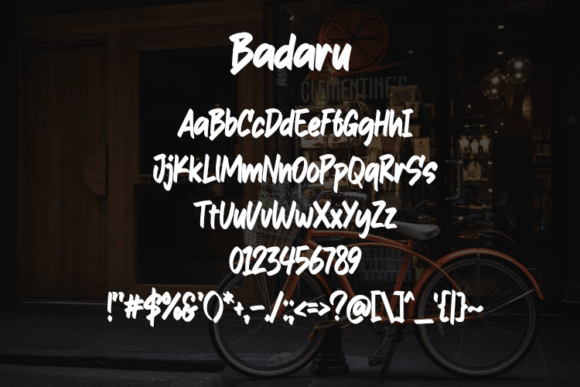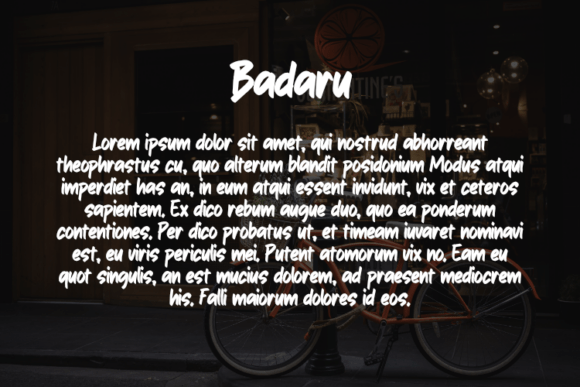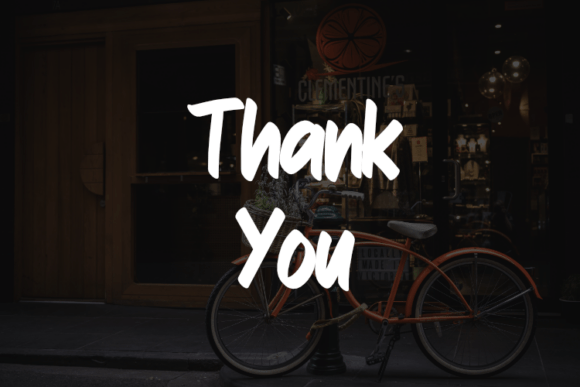
Introducing Badaru Font: The Ultimate Design Companion for Creatives
In the world of design, the right font can make all the difference. It can elevate a simple design into a stunning work of art, convey a message with clarity, and even evoke emotions. For designers, crafters, and DIY enthusiasts, finding the perfect font that is both versatile and compatible with various design software can be a daunting task. This is where Badaru Font comes into play – an all-purpose, versatile font designed to bring creativity to clothing designs and a wide spectrum of products.
The Versatility of Badaru Font
Badaru Font is not just another font; it’s a design companion that can be used across a multitude of projects. Whether you’re designing t-shirts, hoodies, stickers, or any other product, Badaru Font is the perfect choice. Its dynamic and unique style ensures that your designs stand out in the crowd, capturing the attention of your audience. With Badaru, the possibilities are endless, and it’s up to your imagination to create something truly remarkable.
Key Features of Badaru Font
- All-purpose and Versatile: Designed to be used across a wide range of products and designs.
- Unique and Dynamic Style: Adds a distinctive touch to your designs, making them stand out.
Why Choose Badaru Font?
Choosing Badaru Font for your design projects comes with numerous benefits. Firstly, it saves you time and effort in searching for the perfect font that meets all your design needs. Secondly, its versatility means you can use it for various projects, from clothing designs to promotional materials, without needing to switch fonts. Most importantly, Badaru Font offers a unique style that can elevate your designs, making them more engaging and professional.
Tips for Using Badaru Font
To get the most out of Badaru Font, here are some tips:
- Experiment with Sizes and Colors: Play around with different sizes and colors to see how Badaru Font can be adapted to different designs.
- Combine with Other Fonts: Don’t be afraid to pair Badaru Font with other fonts to create a unique and compelling design.
- Use Across Different Products: Take advantage of Badaru Font’s versatility by using it across a range of products, from apparel to accessories.
Badaru Font is more than just a font; it’s a design solution for creatives. Its versatility, compatibility, and unique style make it an indispensable tool for designers and crafters looking to bring their ideas to life. Whether you’re a professional designer or a DIY enthusiast, Badaru Font is here to help you create stunning designs that stand out. So why wait? Crown your designs with the dynamic style of Badaru Font and watch your creativity soar to new heights.